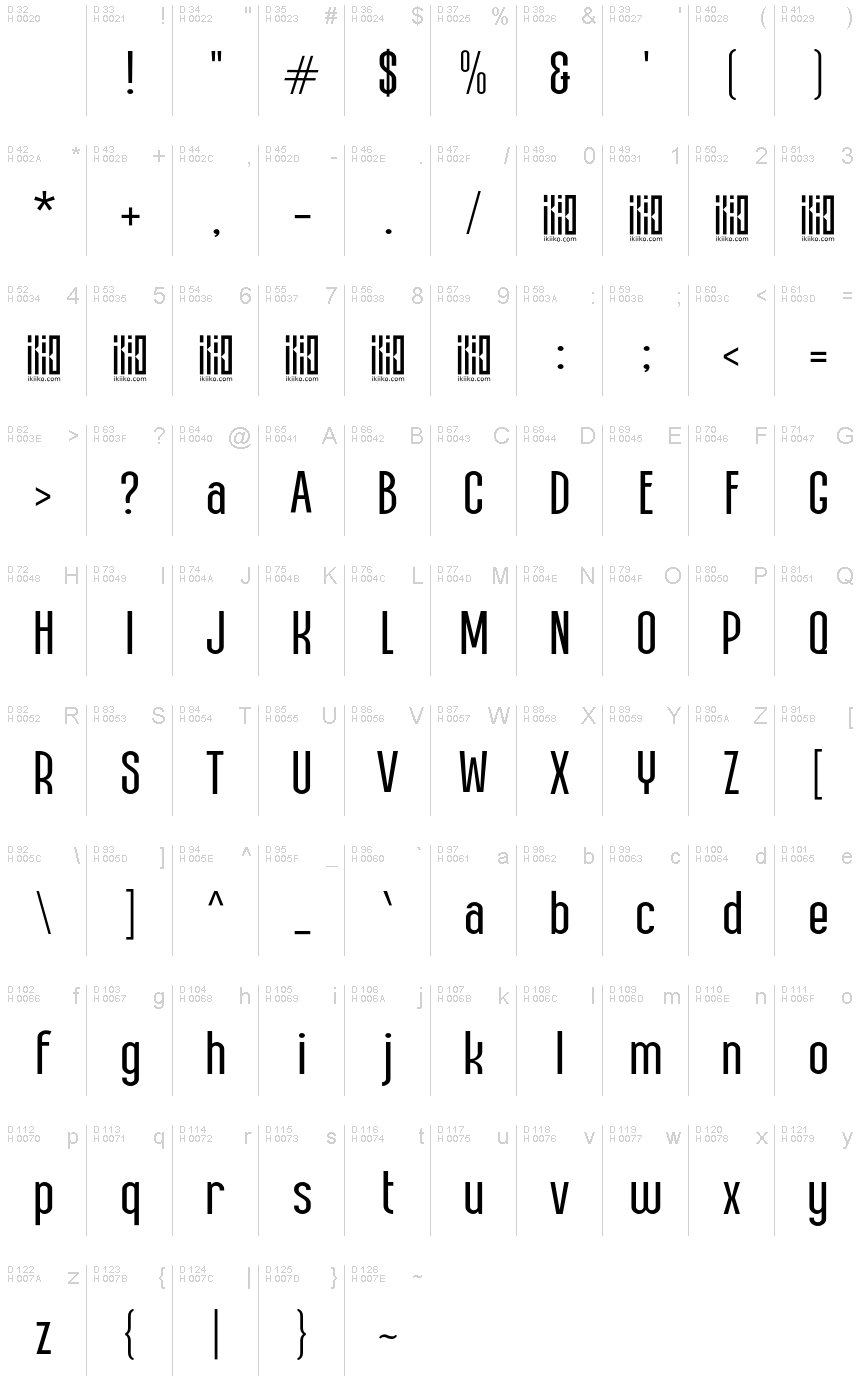
Rocketeers is a captivating sans-serif font crafted by Ikiiko Type. With its retro-inspired aesthetic and condensed width, this font exudes a sense of adventure and nostalgia. The bold, geometric letterforms and sleek, streamlined design create a distinct, eye-catching presence that immediately commands attention. Rocketeers' unique character invokes a feeling of forward momentum and a touch of vintage charm, making it a compelling choice for a wide range of design applications.
Rocketeers' versatility shines through its ability to adapt to diverse design contexts. From bold, attention-grabbing headlines to impactful branding and packaging, this font's distinctive personality lends itself seamlessly to projects that seek to capture a retro-futuristic or vintage-inspired aesthetic. Its condensed width also makes Rocketeers an excellent option for space-constrained designs, ensuring your message is delivered with impact and clarity.